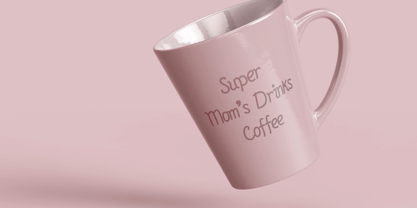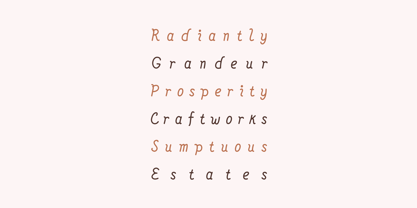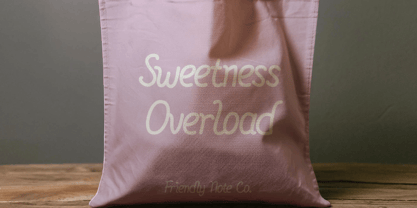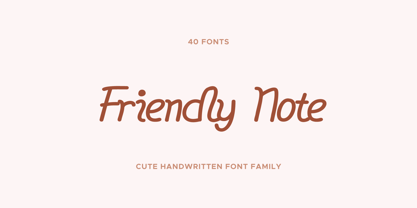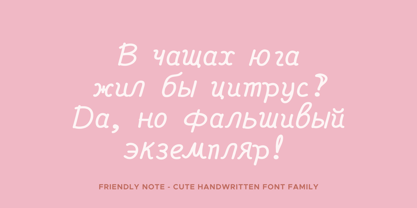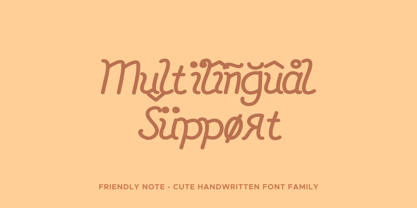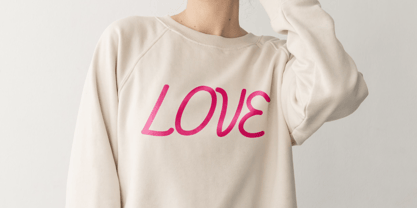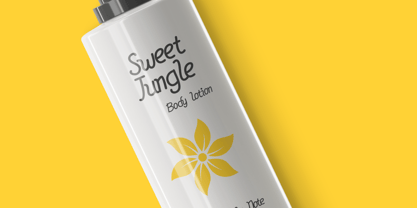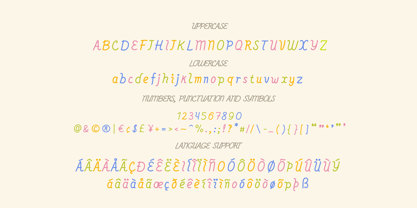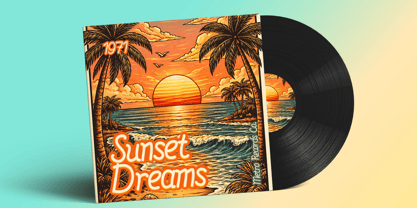
Friendly Note
by OtterType
The Friendly Note Font Family was designed by Mariia Çakıcı and published by OtterType. Friendly Note contains 40 styles and family package options. More about this family
Friendly Note is a delicate handwritten cursive typeface crafted with thin, flowing strokes and a natural pen rhythm. Designed to capture the warmth of personal handwriting, it blends elegance with approachability—perfect for heartfelt messages, branding, invitations, packaging, social media graphics, and editorial accents. With its light, graceful lines and smooth connections, Friendly Note feels intimate and authentic, like a thoughtful message written just for you. The subtle variations in stroke detail bring a human touch while maintaining clarity and readability across sizes. Friendly Note supports 117 languages, including major Latin-based languages: Afrikaans, Albanian, Asu, Basque, Bemba, Bena, Bosnian, Bulgarian, Cebuano, Chiga, Colognian, Cornish, Corsican, Croatian, Czech, Danish, Embu, English, Erzya, Esperanto, Estonian, Faroese, Filipino, Finnish, French, Friulian, Galician, Ganda, German, Gusii, Hungarian, Icelandic, Ido, Inari Sami, Indonesian, Interlingua, Irish, Italian, Javanese, Jju, Jola-Fonyi, Kabuverdianu, Kalaallisut, Kalenjin, Kamba, Kikuyu, Kinyarwanda, Kurdish, Latvian, Lithuanian, Lojban, Low German, Lower Sorbian, Luo, Luxembourgish, Luyia, Machame, Makhuwa-Meetto, Makonde, Malagasy, Malay, Maltese, Manx, Māori, Meru, Morisyen, North Ndebele, Northern Sami, Northern Sotho, Norwegian Bokmål, Norwegian Nynorsk, Nyanja, Nyankole, Occitan, Oromo, Polish, Portuguese, Rejang, Romansh, Rombo, Rundi, Russian, Rwa, Samburu, Sango, Sangu, Sardinian, Scottish Gaelic, Sena, Shambala, Shona, Slovak, Slovenian, Soga, Somali, South Ndebele, Southern Sotho, Spanish, Sundanese, Swahili, Swati, Swedish, Swiss German, Taita, Taroko, Teso, Tsonga, Tswana, Turkmen, Upper Sorbian, Vunjo, Walloon, Walser, Wolastoqey, Wolof, Xhosa, Zulu. Friendly Note comes in a wide range of expressive styles to match different creative moods: Regular & Italic – Clean and naturally flowing Outline & Outline Italic – Light, airy contour versions Brush Series – Soft, hand-painted energy Cut Series – Sharper, crafted edges Eroded Series – Subtle distressed texture Grit Series – Gently roughened character Ink Series – Classic pen-written feel Rough Series – Organic, textured strokes Rust Series – Vintage-inspired wear Scratch Series – Edgy, expressive texture Worn Series – Softly aged personality Each style includes Regular, Italic, Outline, and Outline Italic variations—giving designers maximum flexibility for layering, contrast, and creative experimentation. Thank you!
Friendly Note